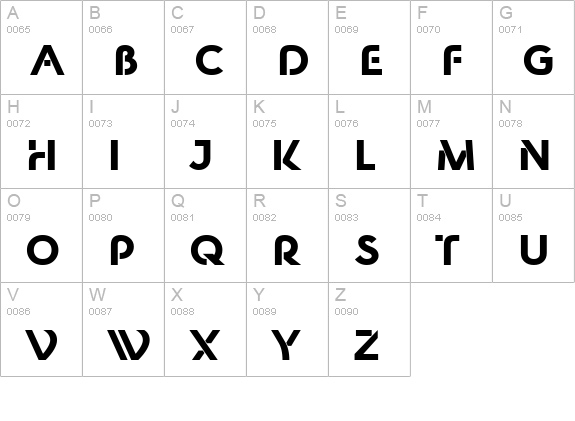
New Shape Bold Font Details
New Shape Bold is a strong, high-contrast variant in the New typeface family \xE2\x80\x94 well suited to headlines, attention-grabbing titles, and strong calls-to-action.
Introducing New Shape Bold, a striking and versatile font that demands attention with its bold and modern design. This font is perfect for making a powerful statement in any creative project or branding endeavor. With its strong, clean lines and distinctive geometric shapes, New Shape Bold adds a touch of boldness and confidence to any design. But what sets New Shape Bold apart is not just its eye-catching appearance, but also its accessibility. This font is freely available to download at FontsMarket.com, making it easily accessible to designers, creatives, and anyone looking to make a bold impact with their typography. Whether you're designing a logo, creating a poster, or crafting a website, New Shape Bold is the ideal choice for making your message stand out. Its bold and impactful presence ensures that your words will be noticed and remembered. The versatility of New Shape Bold is another reason why it's a must-have font in any designer's toolkit. It can be used in a wide range of design projects, from sleek and modern corporate branding to edgy and artistic graphic designs. Its clean lines and bold shapes make it perfect for headlines, titles, and any text that needs to make a bold statement. With New Shape Bold, you have the freedom to experiment and explore different design possibilities. Its bold and daring design will inspire you to think outside the box and push the boundaries of typography. So why wait? Download New Shape Bold for free at FontsMarket.com and unleash your creativity today. Take advantage of this unique font and elevate your designs to new heights. Make a bold statement and captivate your audience with the power of New Shape Bold.